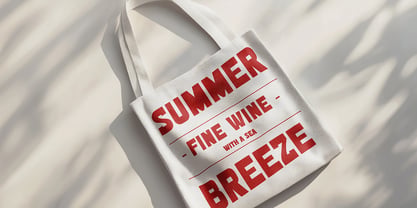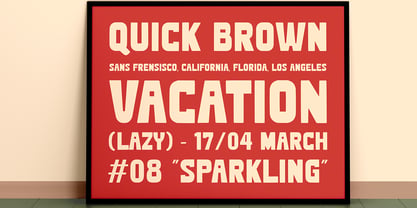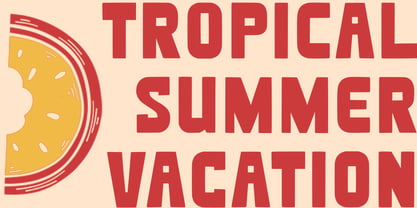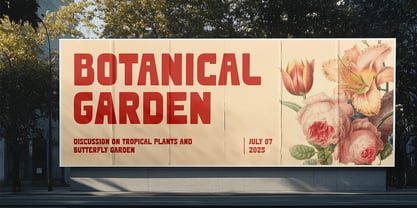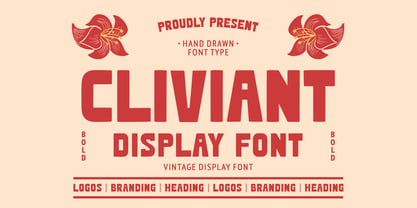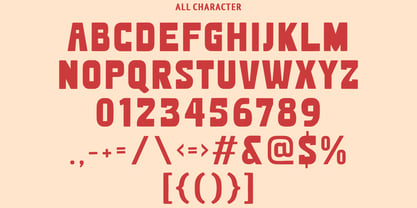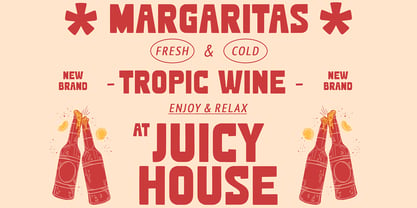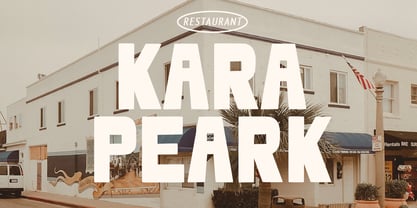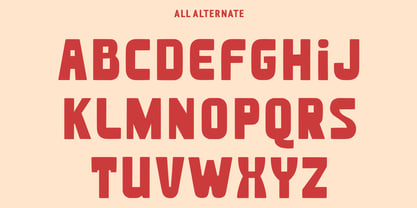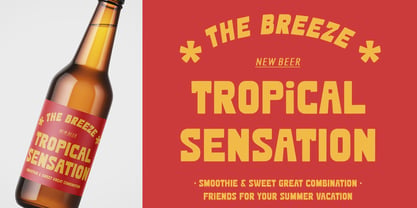
Cliviant
The Cliviant Font Family was designed by Asep Rendi and published by Arendxstudio. Cliviant contains 1 styles. More about this family
Font Description: Cliviant
Cliviant is a vintage hand-drawn font that captures the charm and character of mid-20th-century signage and handwritten typography. With its irregular strokes, subtle imperfections, and playful curves, Cliviant exudes a warm, nostalgic vibe that feels both personal and timeless. Each letter is carefully crafted to mimic the look of hand-drawn art, making it perfect for designs that require a touch of authenticity and retro flair.
Cliviant’s versatility shines in its ability to evoke the spirit of old-school diners, classic packaging, and vintage posters. Whether you’re designing a logo, creating a label, or crafting a poster, Cliviant brings a unique, handcrafted aesthetic that stands out. Its quirky details and organic flow make it ideal for projects that aim to feel approachable, nostalgic, and full of personality.
Key Features:
- Hand-drawn, vintage-inspired letterforms
- Irregular strokes and subtle imperfections for authenticity
- Perfect for logos, packaging, posters, and branding
- Includes uppercase, lowercase, numbers, and punctuation
Use Cases:
- Retro branding and logos
- Vintage packaging and labels
- Handmade-inspired designs
- Themed posters and advertisements